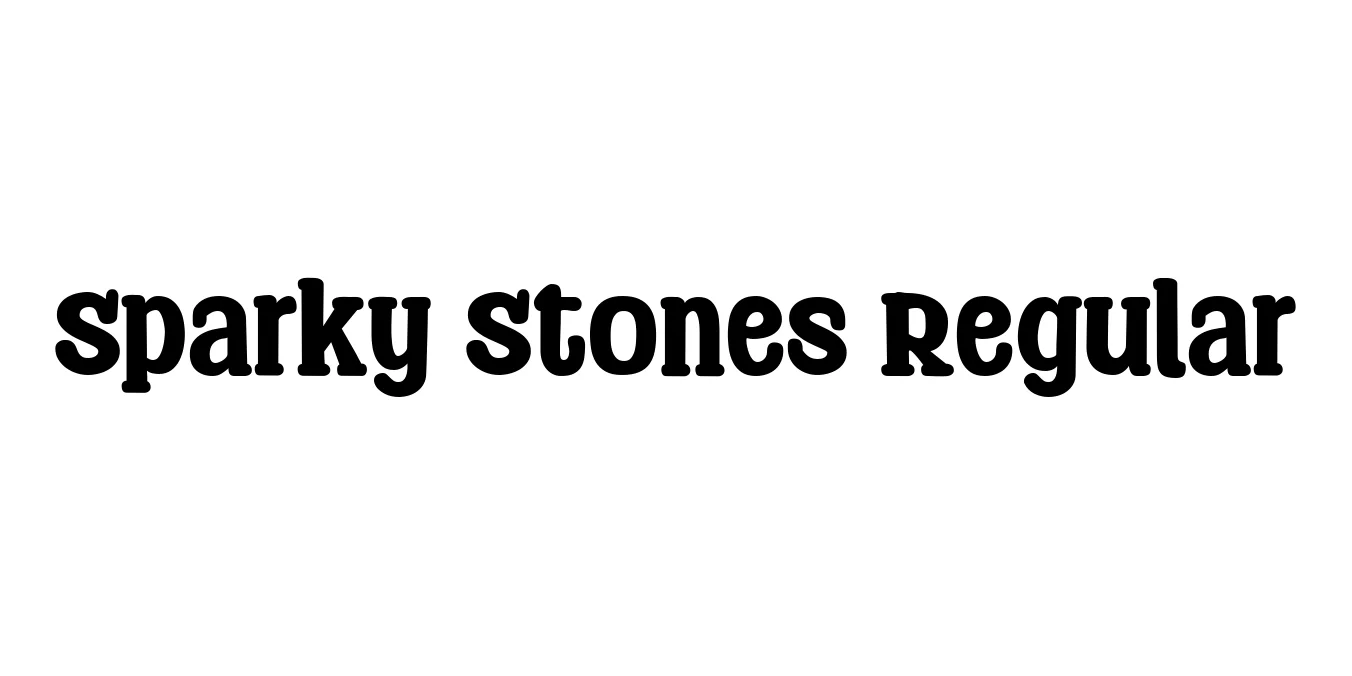
Sparky Stones Regular
Designed by Arterife Studio
Sparky Stones Regular is a vibrant and playful display font designed to bring a sense of fun and energy to any creative project. Characterized by its rounded, stone-like appearance, this font offers a soft yet bold aesthetic that is highly legible and visually engaging. It was crafted specifically for designers looking to add a touch of whimsy and organic texture to their work, making it a staple for cartooning, casual branding, and lighthearted graphic designs.
Beyond its playful exterior, Sparky Stones Regular is highly versatile, performing exceptionally well in both digital and print environments. It is frequently utilized in children's books, toy packaging, and mobile game interfaces where a friendly and approachable tone is essential. Its unique geometry and consistent weight make it a reliable choice for standout headlines and memorable logos that need to capture the viewer's attention instantly.
Sparky Stones Regular Best Uses
Ideal for fun and creative brand identities.
Perfect for titles and headers in kids' literature.
Great for UI elements and titles in casual games.
Eye-catching for Instagram posts and YouTube thumbnails.